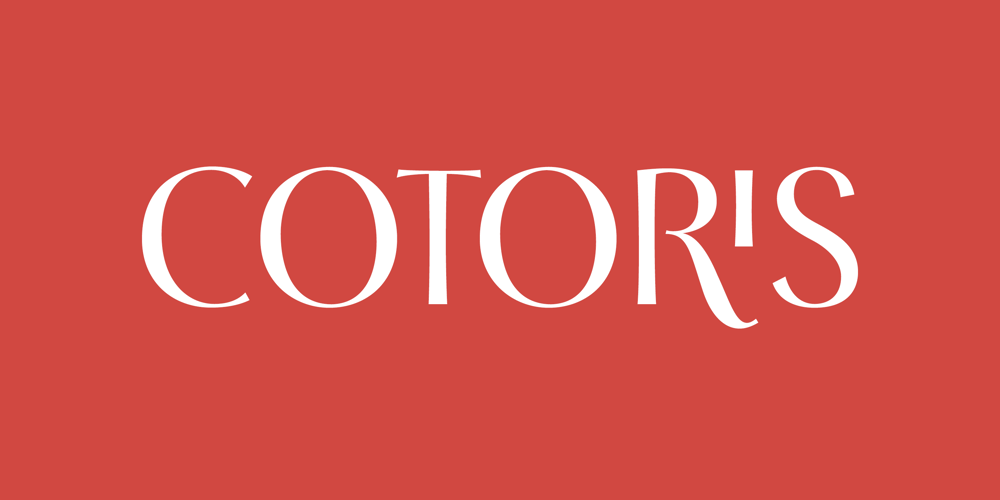
Cotoris Font Family was designed by Ryoichi Tsunekawa and published by Dharma Type. Cotoris contains 4 styles and family package options. Cotoris is beautiful glyphic sans serif. This font includes ligatures and small caps for advanced typography which are accessible by OpenType features. Highly effective where a graceful and feminine design is desired. Rising Star on June 2007.